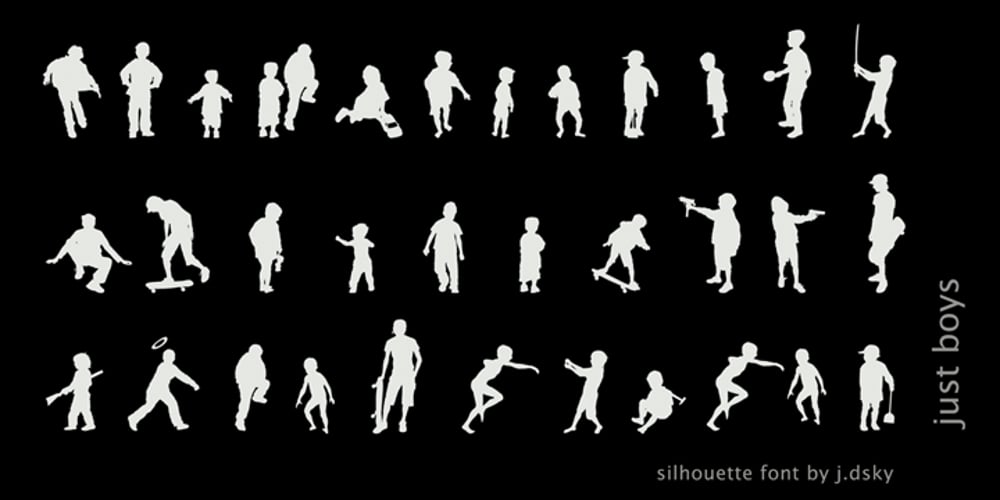
Just Boys Font Family was designed by Jacek DziubiĆski and published by j.dsky. Just Boys contains 1 styles and family package options. Silhouette font designed to be used as a decorative element within layouts and illustrations. Featuring boys and toys in everyday life situations. Inspired by my kids and their friends playing, running, fighting and expressing different emotions. To create this set of 81 glyphs I used photographs that I hand-traced. Picture font recommended for a variety of illustrative purposes.